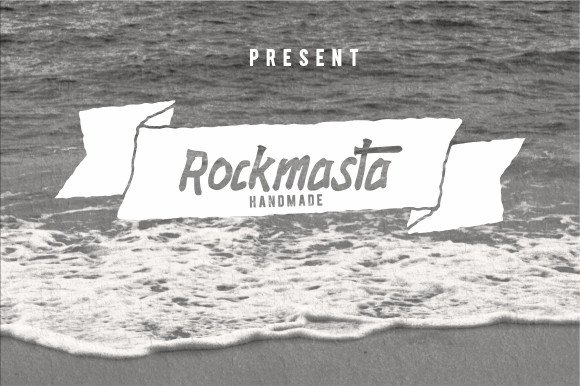
Journey into the world of Rockmasta, a captivating display font crafted by the artistic hands of Ijem RockArt. With its rustic charm and textured edges, Rockmasta beckons you to explore a realm of creative possibilities.
Immerse yourself in the beauty of Rockmasta's unique design, where each character exudes a friendly and legible personality. Its carefully crafted strokes dance effortlessly across the page, inviting you to craft designs that resonate with warmth and charm.
Rockmasta's versatility knows no bounds, effortlessly adapting to a myriad of design projects. Unleash your imagination and create captivating logos that exude a timeless appeal. Craft eye-catching posters that transport viewers to a world of rustic elegance. Design stunning invitations that ignite a sense of wonder and excitement.
Whether you're designing for print or digital media, Rockmasta seamlessly blends with your creative vision. Its inherent charm adds a touch of authenticity to branding materials, ensuring your designs leave a lasting impression. And when it comes to web design, Rockmasta's webfont capabilities bring your online presence to life, creating a user experience that captivates and engages.
With Rockmasta, you're not just downloading a font; you're embracing a design philosophy that celebrates the beauty of imperfection. Its unique character set adds a touch of whimsy to any project, inviting your audience to connect with your message on a deeper level.
Embrace the allure of Rockmasta today and embark on a creative journey unlike any other. Its timeless appeal and unwavering charm will elevate your designs to new heights, leaving an indelible mark on the hearts and minds of your audience.